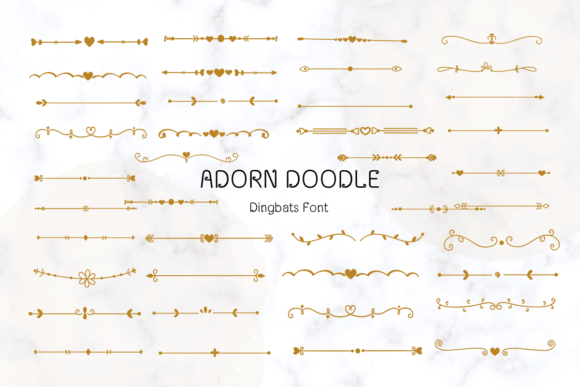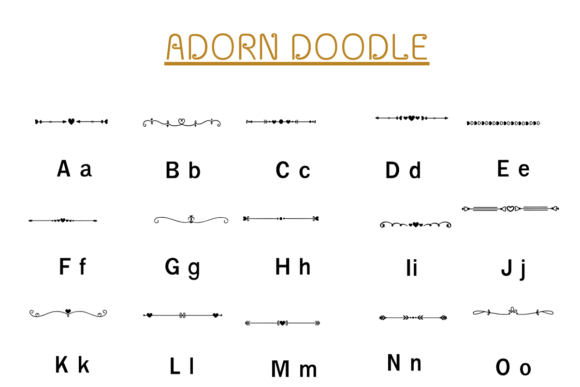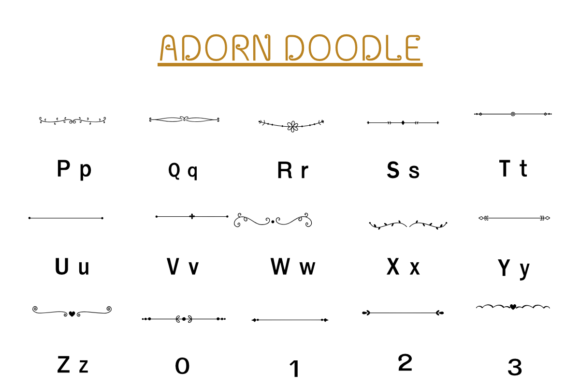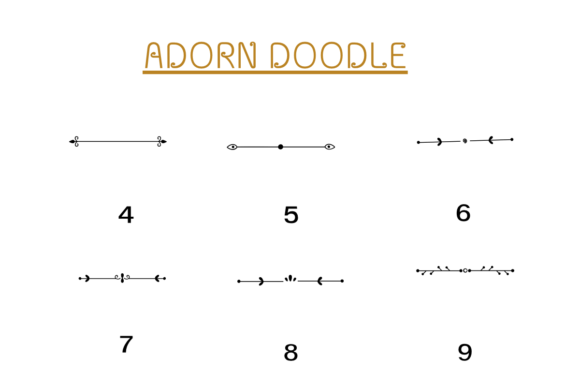
Adorn Doodle Font: Cute Dingbats for Cricut & Craft Projects!
About the Adorn Doodle Font
We are excited to introduce Adorn Doodle Font, a must-have typeface for any serious designer. Adorn Doodle is a lovely dingbat font with a cute theme. This font can enhance your crafty projects such as wedding invitations, DIY, crafts, decorations, logos, and many other creative ideas.
Adorn Doodle’s playful personality makes it ideal for projects requiring a lighthearted and charming touch, such as children’s books, branding for artisanal goods, or whimsical invitations. It excels in headlines, short text blocks, and logos where its unique character can shine. However, its decorative nature makes it unsuitable for body text or UI elements where readability is paramount.
For optimal visual harmony, pair Adorn Doodle with a clean sans-serif font like Open Sans for body text, ensuring contrast and readability. Alternatively, a classic serif like Garamond can lend a touch of sophistication, balancing the font’s whimsicality. Avoid pairing it with other highly decorative fonts, which could create visual clutter.
The font projects a friendly, approachable aesthetic, best suited for brands emphasizing handmade quality, creativity, or a youthful target audience. Its informal style is less appropriate for formal settings or projects requiring a serious, corporate image.